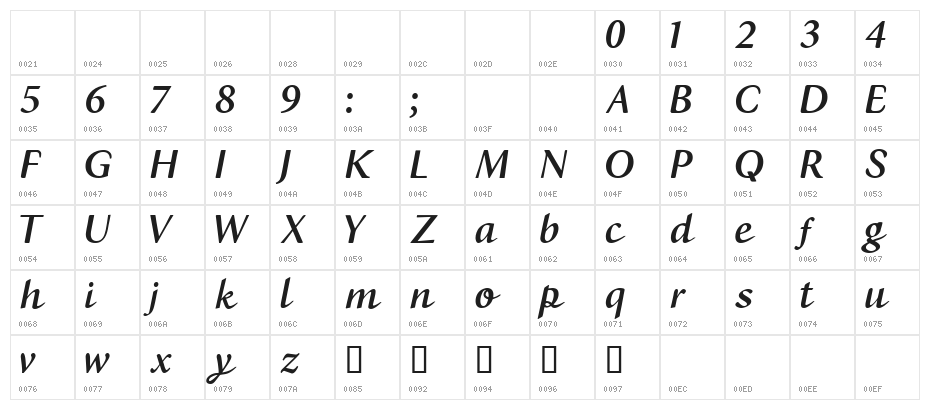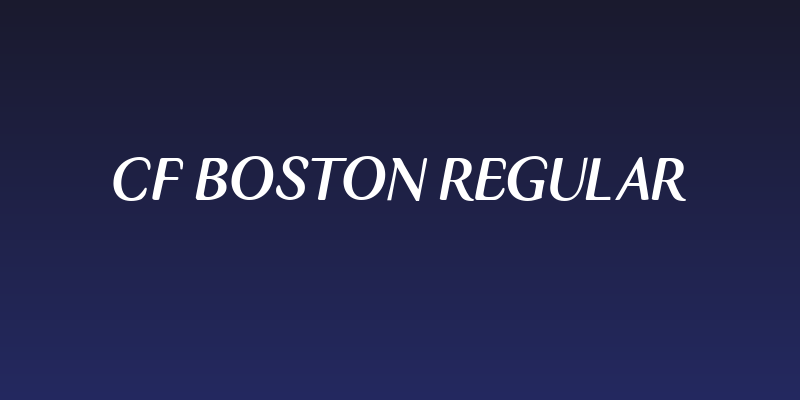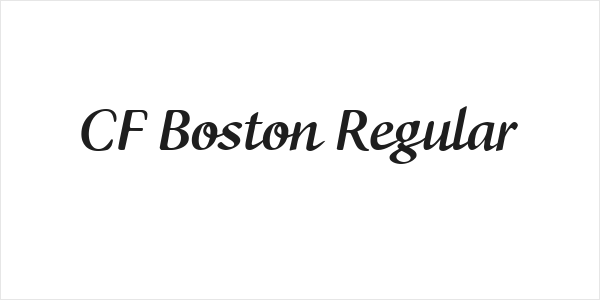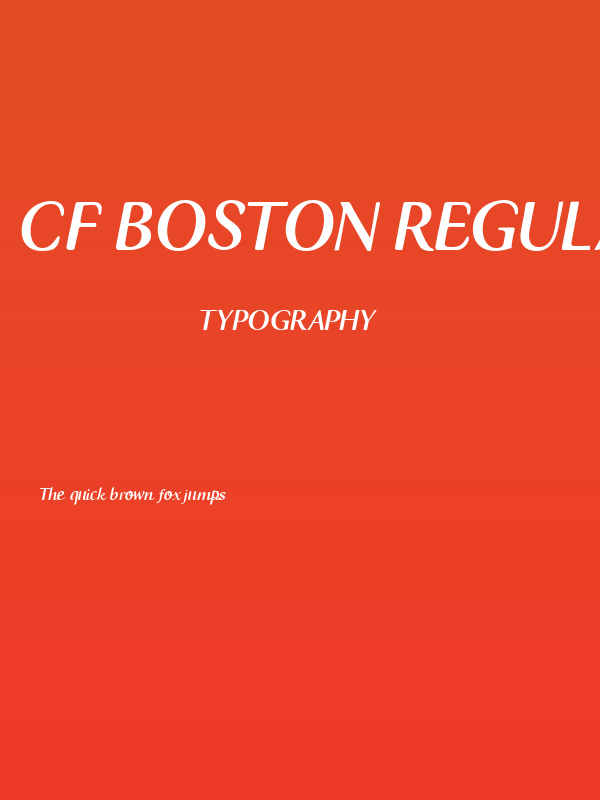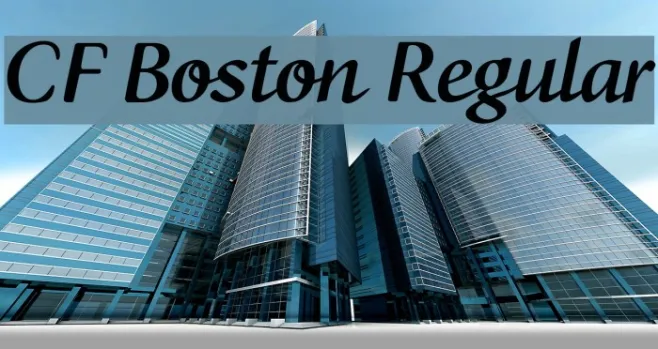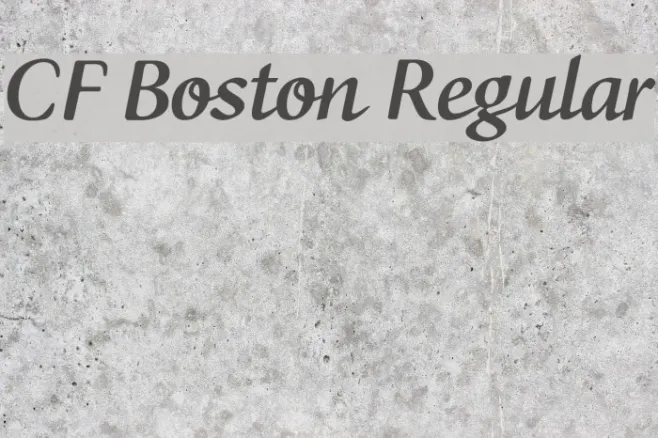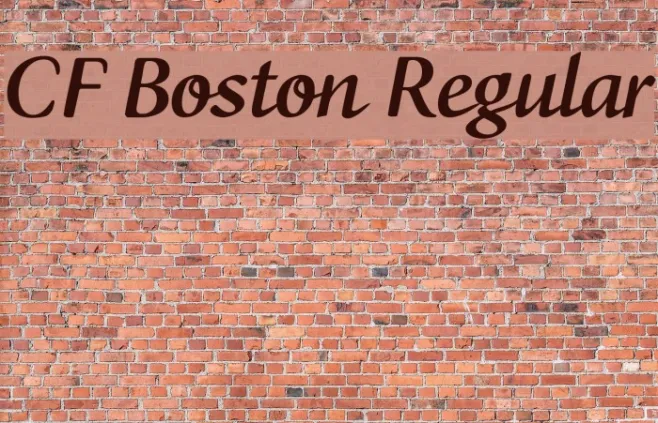
CF Boston Regular Font
CF Boston Regular Description
This font features a dynamic and elegant style with a slight slant, giving it an italicized appearance. The characters are well-defined with smooth curves and sharp edges, providing a sophisticated look. The uppercase letters are tall and commanding, while the lowercase letters maintain a consistent flow with a touch of flair. The numerals are clear and balanced, making them easy to read. The special characters are designed to complement the overall aesthetic, ensuring versatility across various uses. This font's design is both modern and timeless, making it suitable for a wide range of applications.
| Proposed Projects | Ideal for branding, editorial design, advertising, and any project requiring a touch of elegance and readability. |